Exalted
Exalted is a geometric font with clean lines and sharp angles that make it feel simultaneously modern and timeless. It’s a typeface that lends clarity of purpose to text. It has nine weights, including three outline weights, plus accompanying italics.
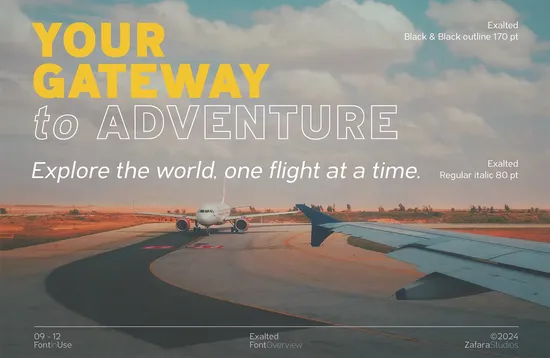
ZT Talk
ZT Talk is a huge type family with 80 complete styles. There are eight weights, from light to black with accompanying italics, and five variant styles: Condensed, Semi Condensed, Normal, Semi Expanded, and Expanded.
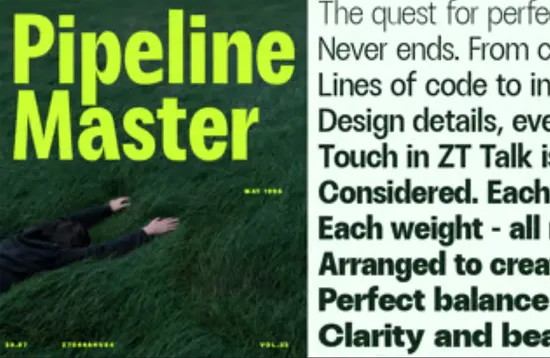
Agna
Agna pays tribute to 18th-century French typography with its refined curves and crisp detailing. There are four optical sizes: Text, Subhead, Headline, and Display. Each optical size includes seven weights from Extralight to Black, plus matching italics.
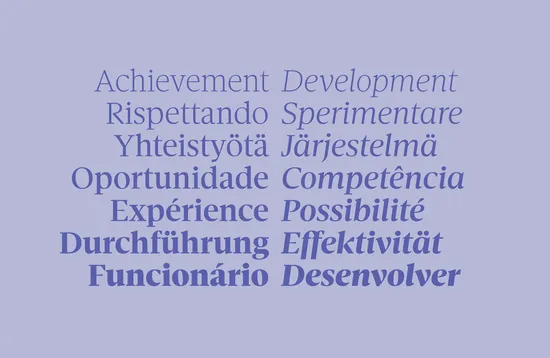
TT Globs
TT Globs is a super-wide slab serif with a friendly, almost nonchalant character. It has just been updated to add Cyrillic support and an expanded character set. There are three styles: Extralight, Light, and Regular. There’s also a variable font available.
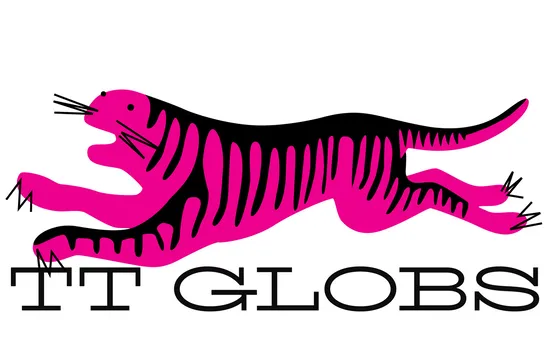
Collidge
Collidge is a retro font that’s great for branding projects ranging from sportswear to coffee shops. There are four styles: Regular, Rounded, Regular Outline, and Rounded Outline.
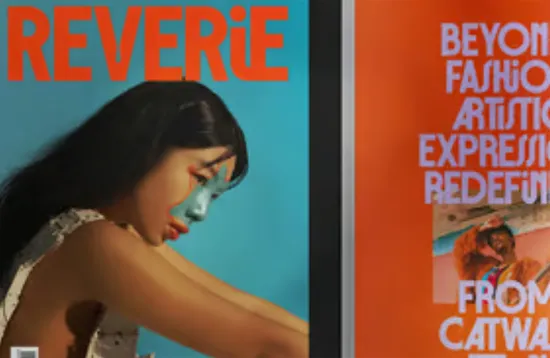
TT Supermolot Neue
TT Supermolot Neue is a dynamic, futuristic feeling font that is fantastic for UI designers. It has just been re-releasedwith expanded OpenType features, a larger character set, and more language support. There are 36 weights with accompanying italics, and a variable font is available.
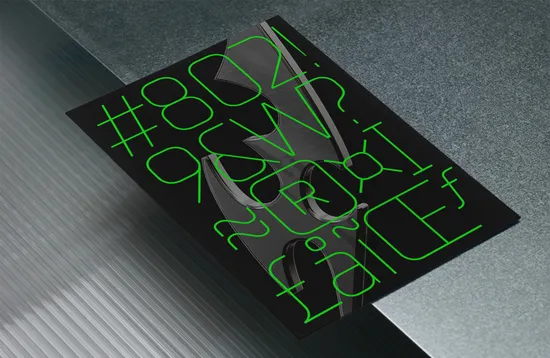
Goodman
Goodman is a dynamic serif with enlarged brackets, creating a vibrant contrast between sharp serifs and curved strokes. It works well at display sizes, as well as for body text. There are six weights with accompanying italics.
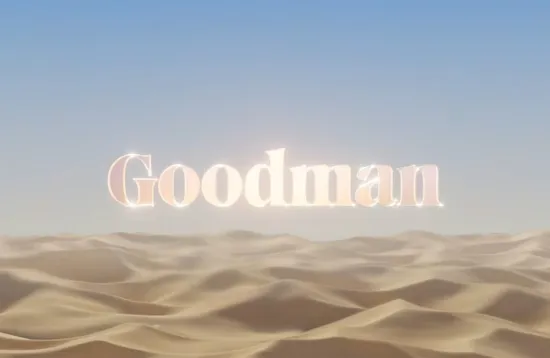
00 Eckmania
00 Eckmania is a revival of an early 19th century typeface. It’s expressive and unique, especially at display sizes. It would be fantastic for branding a project that revolves around craft, or heritage products. It’s available as a variable font.
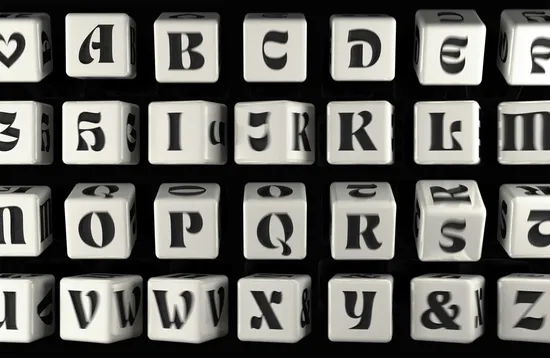
Supleix
Supleix is a sans serif filled with contradictions. The deceptively simple shapes began as geometric forms, then evolved as curves were introduced. It’s a great corporate typeface. There are currently four weights and matching italics.
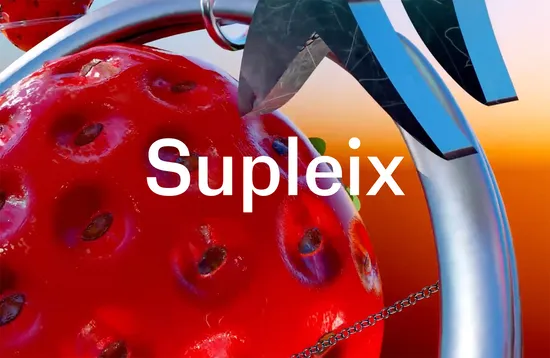
Lader
Lader is a super-clean geometric sans serif. The deliberately sterile shapes are carefully crafted to be calm, confident, and pleasant. Use it for corporate logos. There are nine weights plus italics and a variable font version.
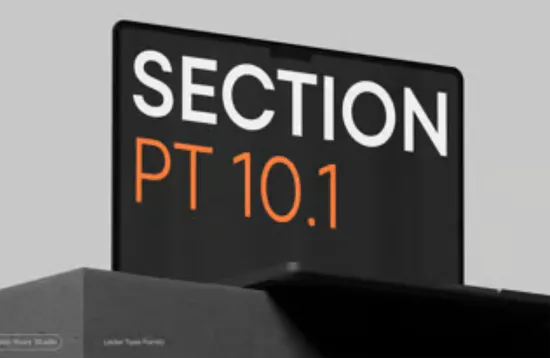
Raim
Raim is a stylized slab serif. Its large x-height, rounded forms, and high contrast all nod to wine bottle labels, and there are alternate characters featuring curves like vine fronds to complete the look.
Maligna
Maligna is a beautiful serif font packed with graceful curves and sharp details. It features a unique lowercase g that seems to hang on the baseline. There are seven styles plus accompanying italics. A variable font is available.
Kemri
Kemri is a delightful display font featuring dozens of beautiful ligatures and alternate characters that swirl around the letters, creating motion and points of focus in your text.
Classique
Classique is a high-contrast serif with a relaxed warmth. It’s a friendly, approachable typeface that works well across a range of sizes, from body text to headings. There are five weights plus italics.
Teenage Crookite
Teenage Crookite is a retro-style display font with exaggerated proportions. It’s bold and playful and would be a greatchoice for editorial work or even logo design.